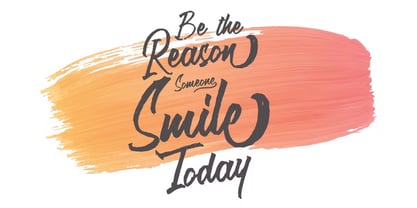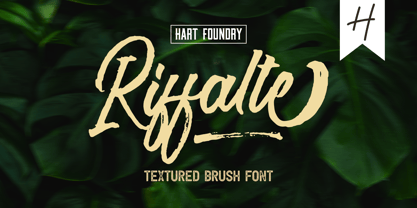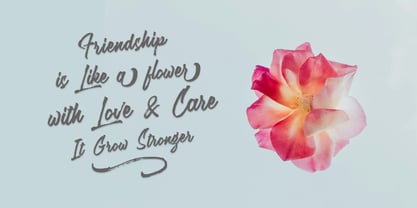
Riffalte
by Hart Foundry
The Riffalte Font Family was designed by Muhammad Ardiansyah and published by Hart Foundry. Riffalte contains 1 styles.
Welcome Riffalte This font takes me back to why I personally fell in love with handlettering - messy handwritten quotes that transform words of inspiration into beautiful visual pieces. In addition to quotes and prints, Stellar would be ideal for logos and headings, and wherever big & bold lettering is needed!
For authentic handwritten variation, Stellar comes with a lowercase alternates some of ligatures.
Multilingual support: English, French, German, Italian, Spanish, Catalan, Danish, Dutch, Finnish, Icelandic, Norwegian, Portuguese and Swedish.
Designers: Muhammad Ardiansyah
Publisher: Hart Foundry
Foundry: Hart Foundry